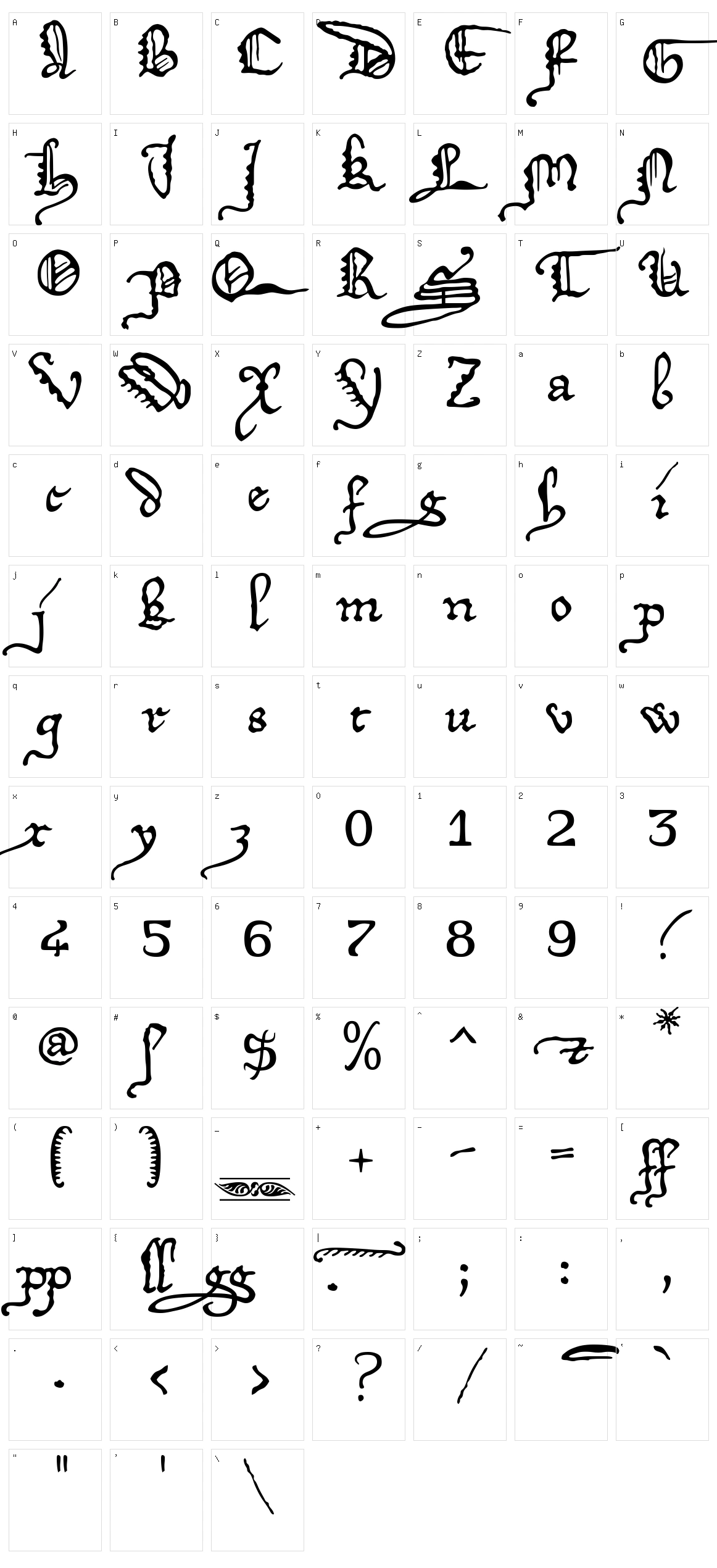
DeiGratia
Designed by: Pia Frauss
Category: Medieval & Gothic
DeiGratia 1.0
-- created by Pia Frauss in 2005, with High Logic's FontCreator Program --
The DeiGratia font is rather closely based on a charter issued in 1275 by the German emperor Rudolf of Hapsburg, and will appear to best advantage in longer texts.
There is no number sign in this font. In its place, you'll find a long s. Equally, you'll find extras in other places:
- a double f on the left bracket
- a double p on the right bracket
- a double l on the left curly bracket
- a double g on the right curly bracket
- a double long s on the long s sign
- the charter's most eye-catching abbreviation sign on the asciitilde (it should be used like an accent)
- a separator of sentences on the bar sign
- as well as an st ligature and the original N on the fi and fl keys.